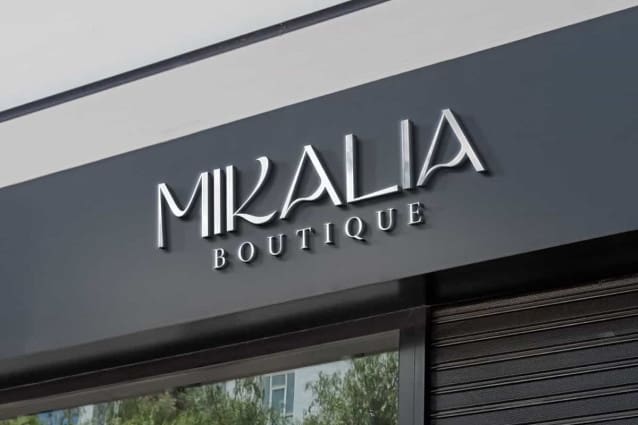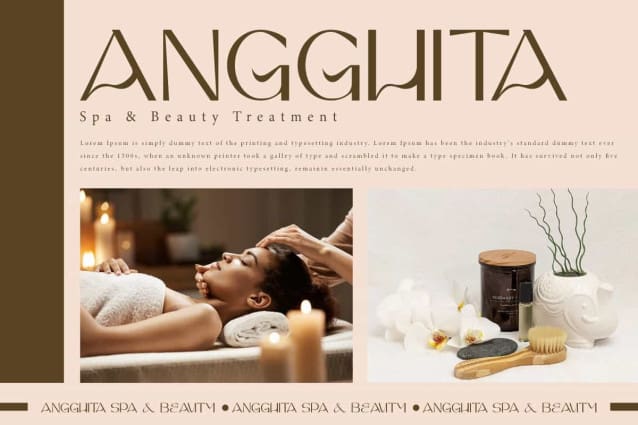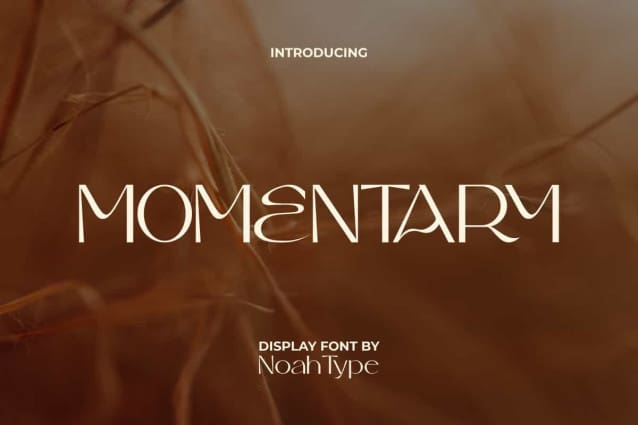
Momentary Font
Momentary Font is a modern stylish sans serif display font by NoahType. This font has a sans serif type that is not boring with the addition of wavy lines to create beauty. It will be good for any designs, such as brand image, custom design, invitation, label, marketing material, menu, poster, product packaging, quotes, signage, stationery, web and many more!
Momentary Font includes a complete set of Uppercase and Lowercase Basic Characters, Numerals, Punctuation and Symbol. The characters of this font will give stunning look and also a perfect choice for many industries, such as accessories, advertising, beauty product, event or festival, fashion, movie, photography, printing, publishing, spa and salon, travel, etc.